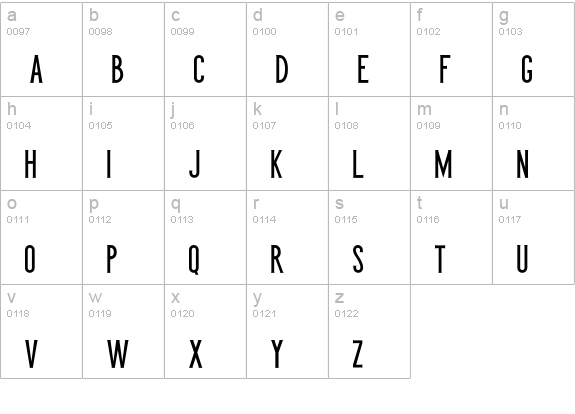
BarberinoCleanTT Regular Font Details
BarberinoCleanTT Regular is the standard, neutral variant in the BarberinoCleanTT typeface family \xE2\x80\x94 well suited to general body text, paragraphs, and standard typographic work.
BarberinoCleanTT Regular is a sleek and modern font that exudes sophistication and elegance. With its clean lines and balanced proportions, this typeface is perfect for adding a touch of style to any project. Whether you're designing a logo, creating a website, or crafting a brochure, BarberinoCleanTT Regular will elevate your work to the next level. This versatile font is ideal for a wide range of applications, from branding to editorial design. Its clarity and readability make it a great choice for both print and digital projects. BarberinoCleanTT Regular is available for free download at FontsMarket.com, making it easily accessible to designers and creatives looking to enhance their work with a high-quality typeface. Overall, BarberinoCleanTT Regular is a must-have font for anyone seeking a clean and contemporary look. Its timeless design and professional finish make it a valuable addition to any designer's toolkit. Download BarberinoCleanTT Regular today and take your projects to new heights of style and sophistication.